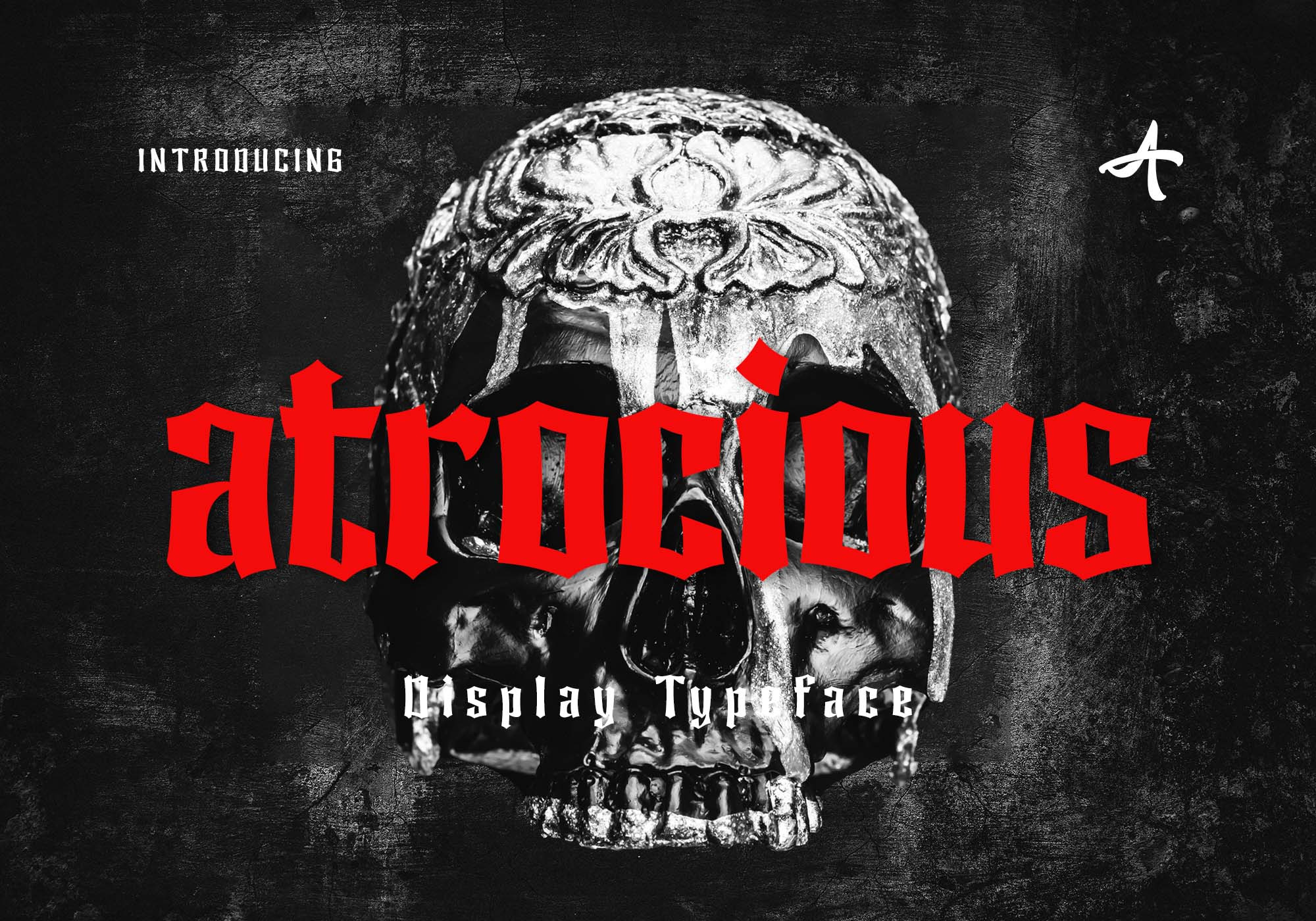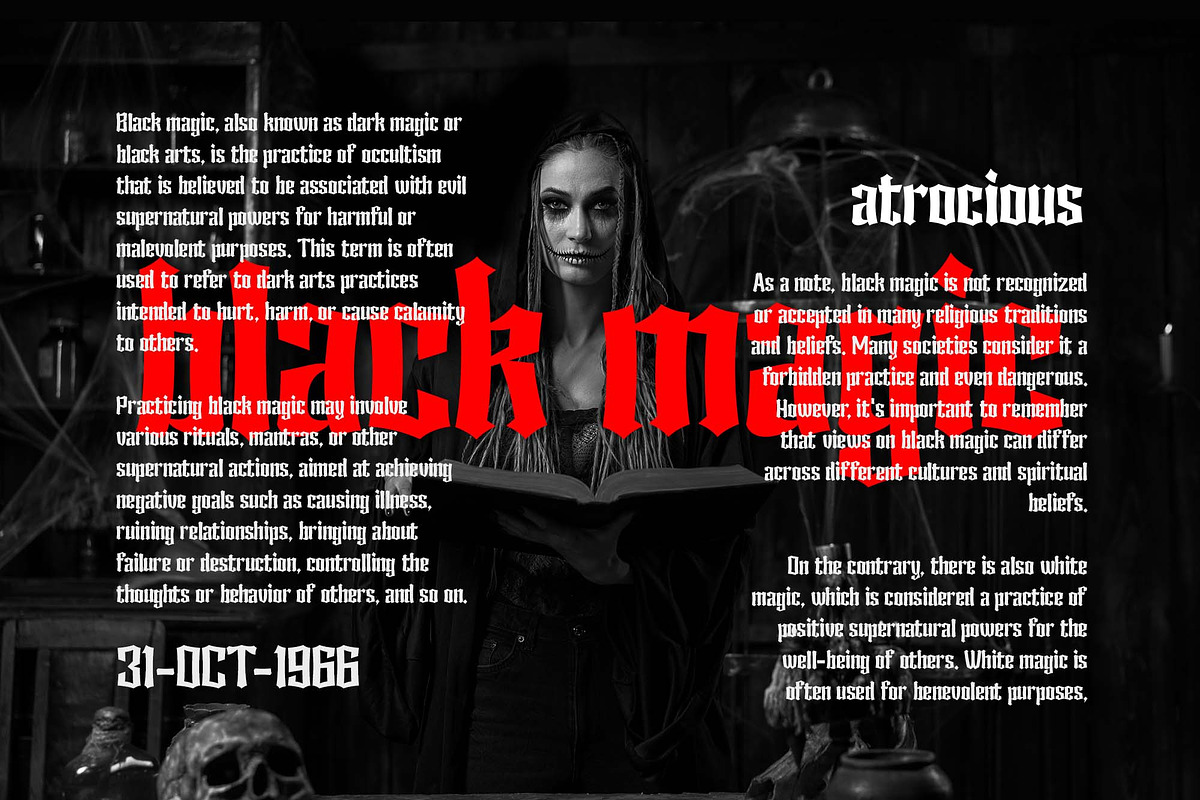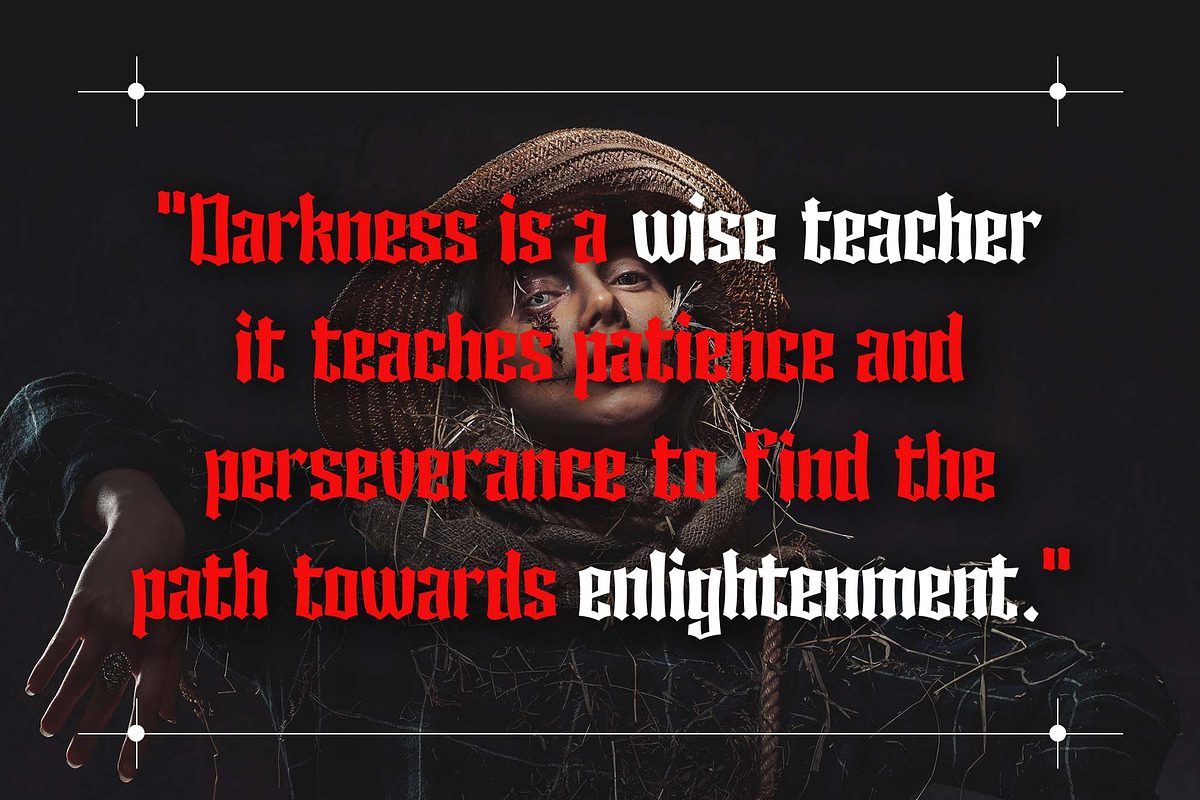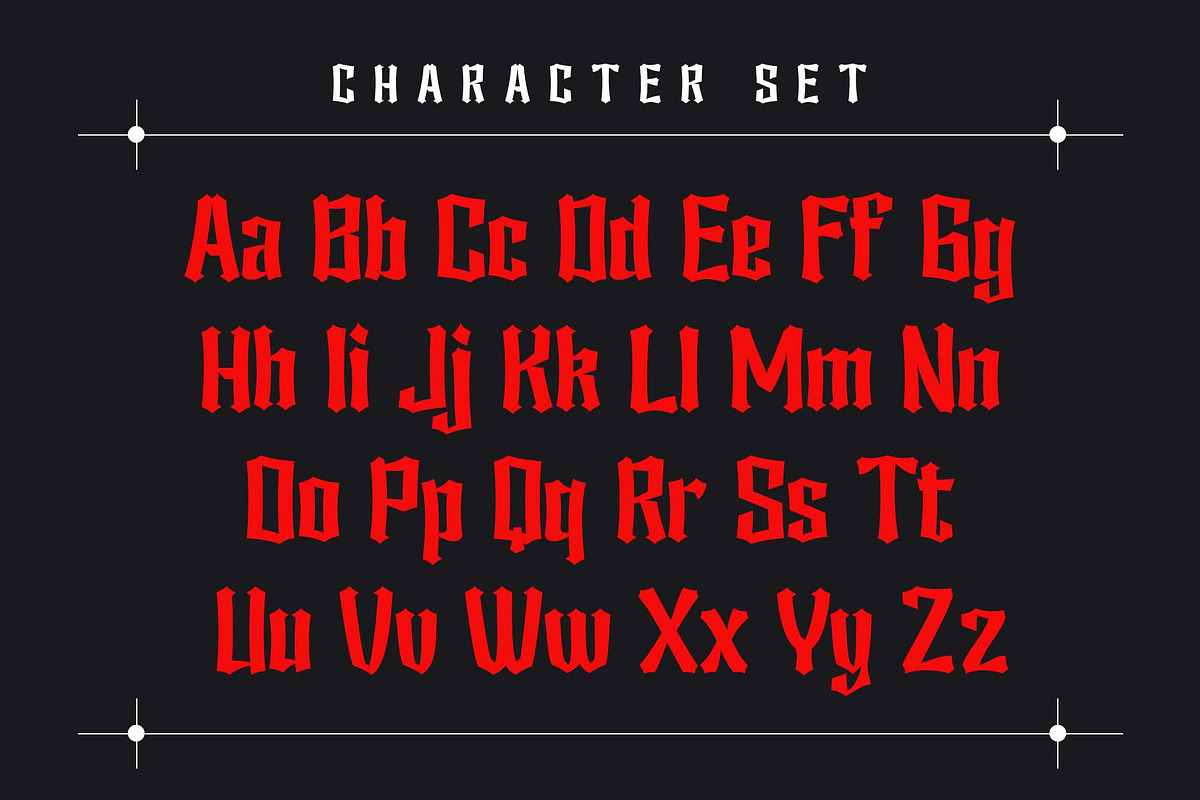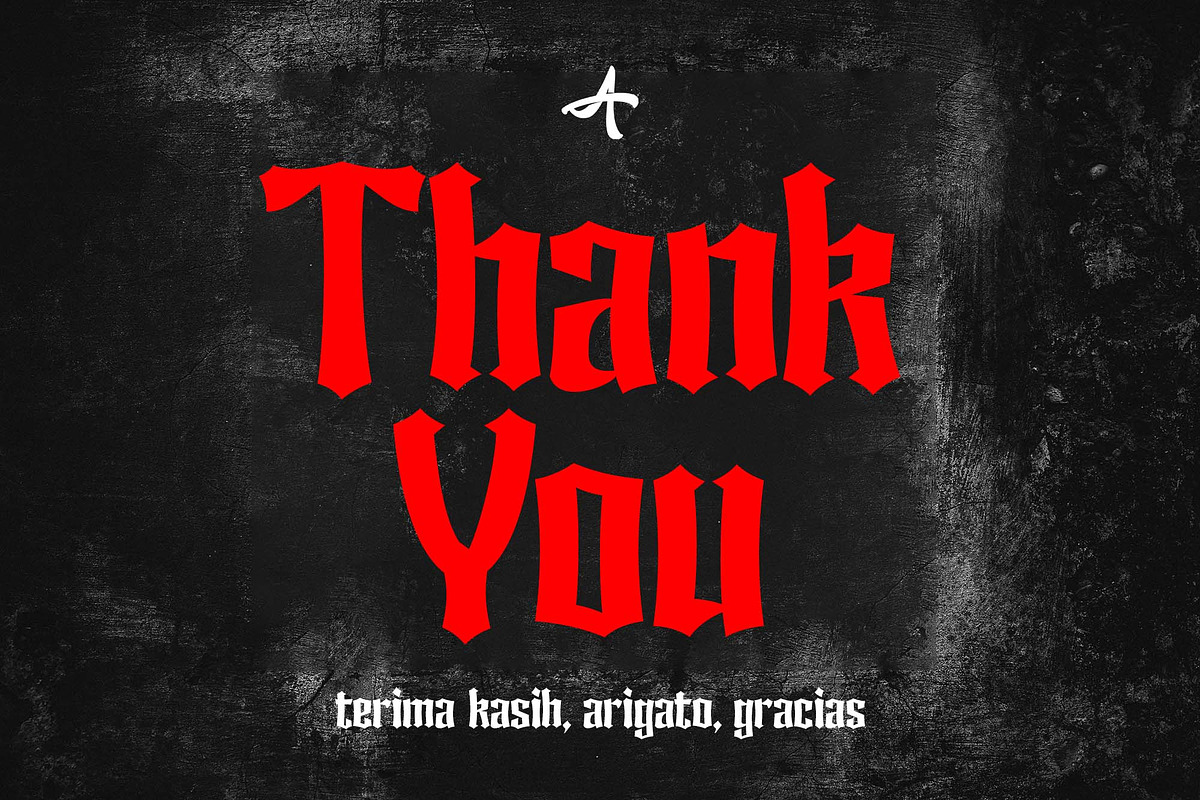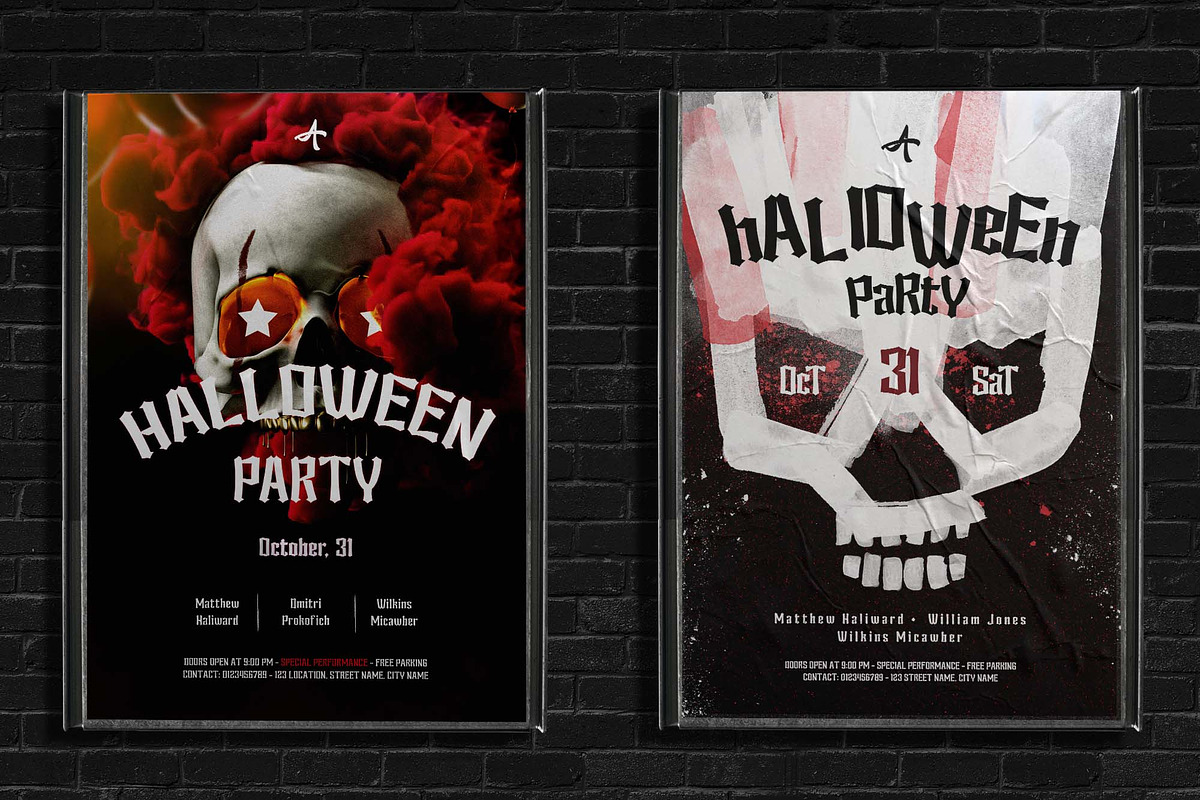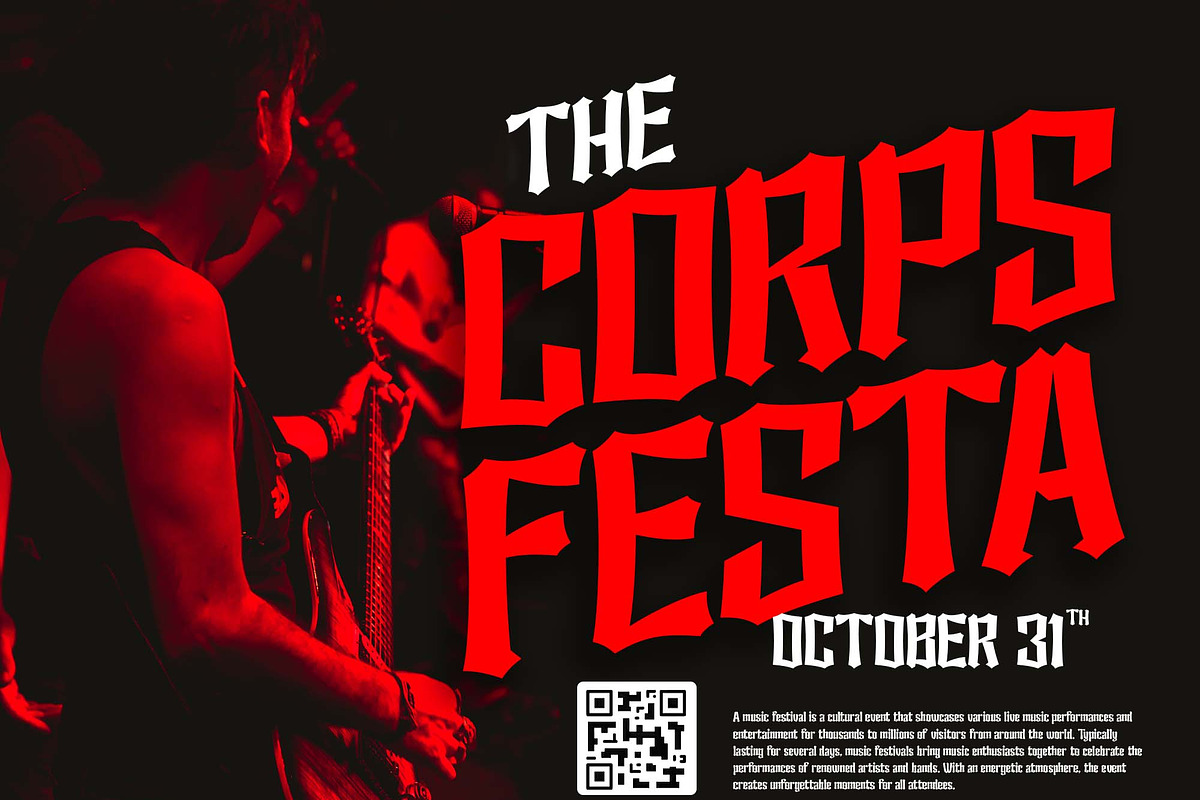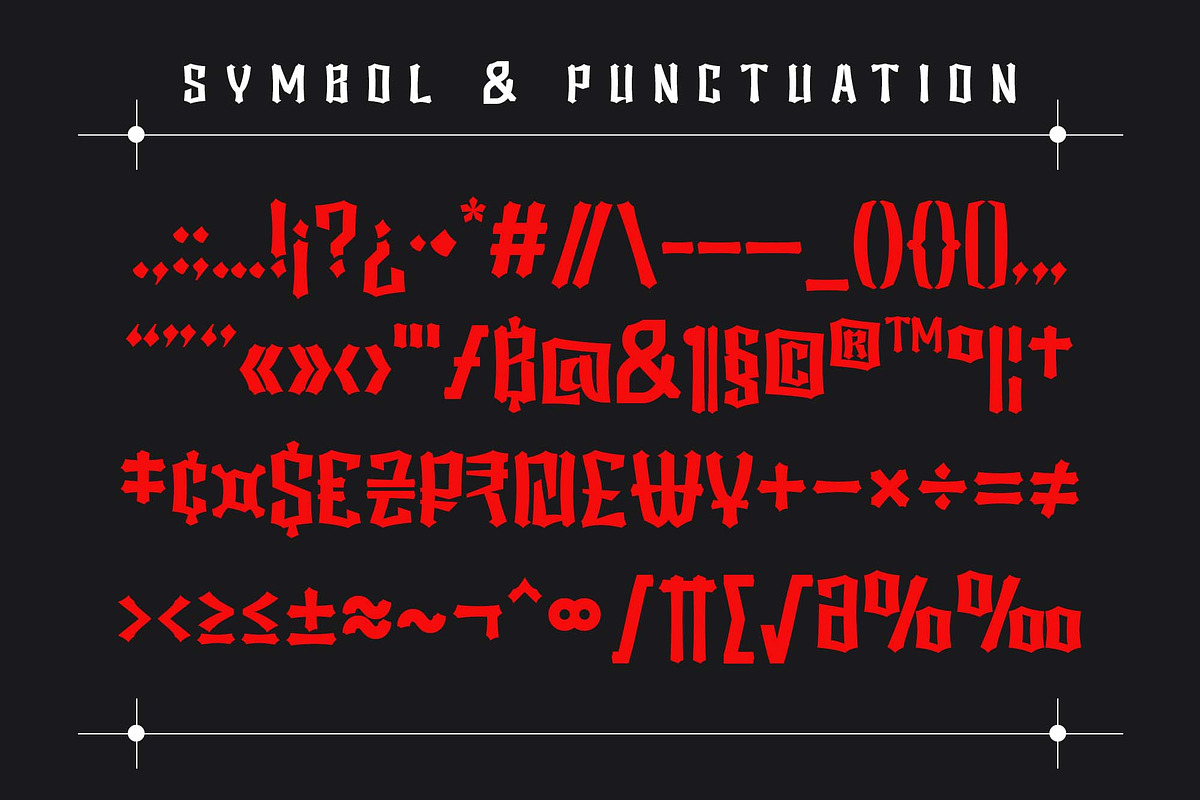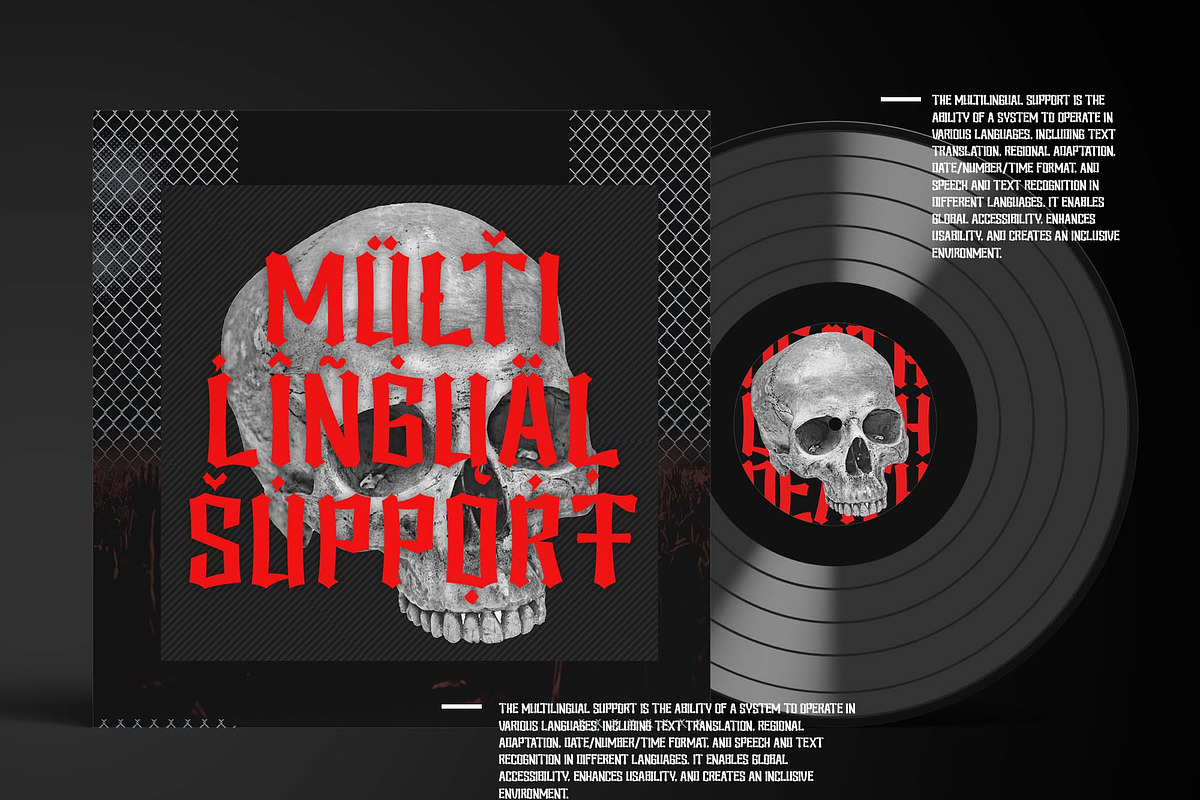
Atrocious - Display Typeface
Atrocious - Display Typeface is not only creating an eerie and unique atmosphere with its distinctive Gothic touch, but also presenting an unparalleled artistic charm. Its stunning design can evoke a remarkably strong aura of mystery, making it an outstanding choice for creating impressive visuals. With the provided OpenType features and the ability to support multiple languages, this font offers limitless flexibility in self-expression. It's suitable for book titles aiming to captivate readers, adding a special touch to the world of cinema, or infusing a unique element into graphic designs. It's not only suitable for horror themes but also for all kinds of designs aiming to portray a spine-chilling ambiance, while retaining an unforgettable impression.
- A – Z Character Set
- a – z Characters set